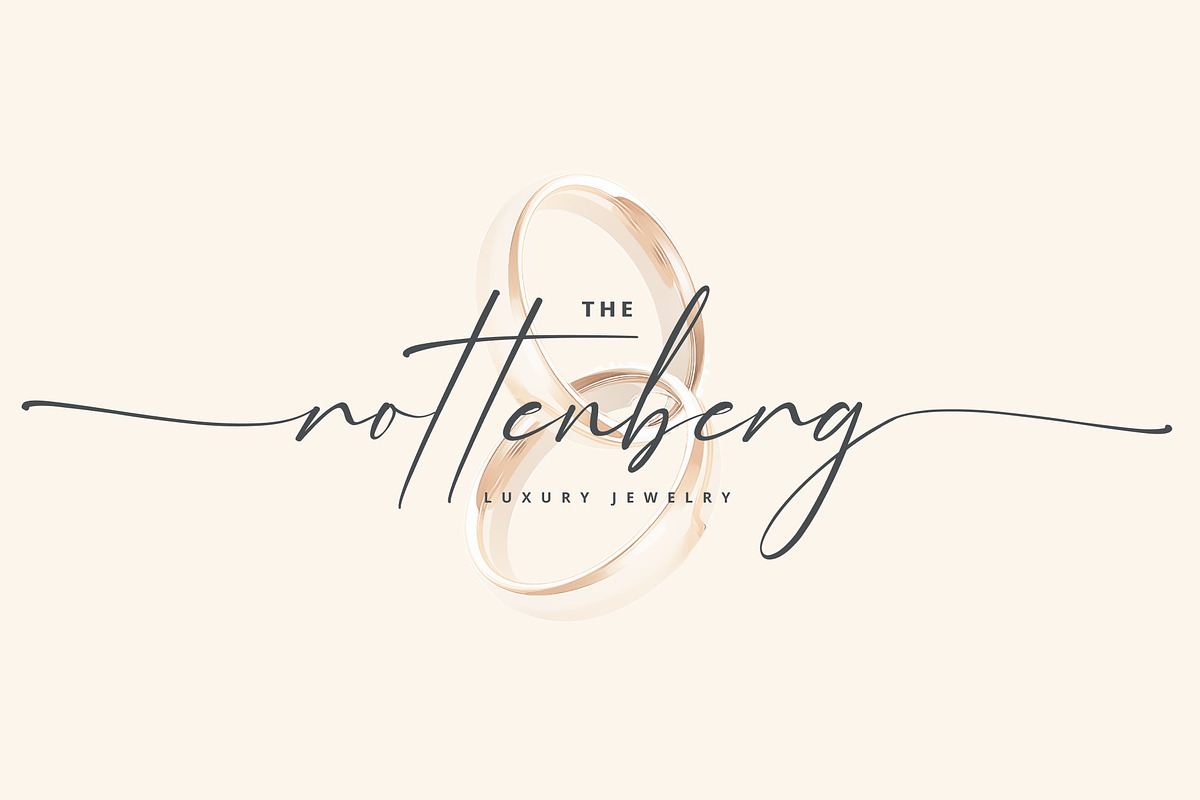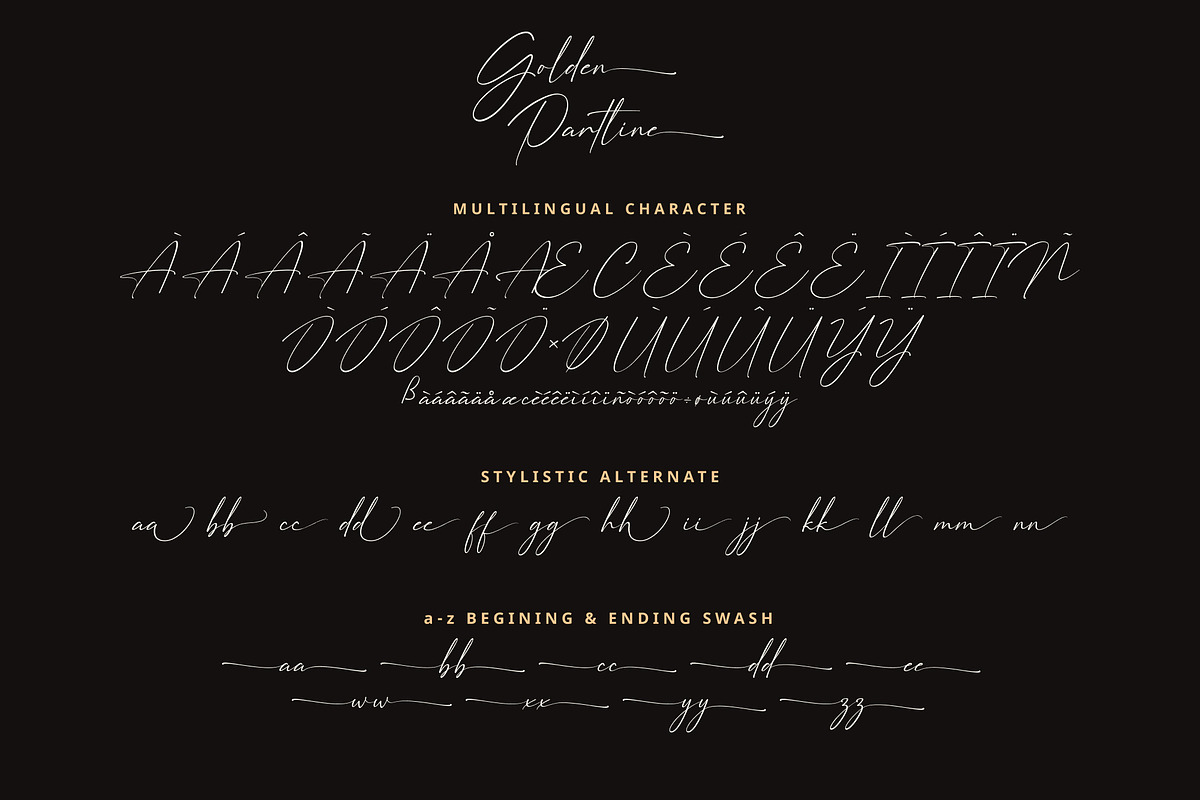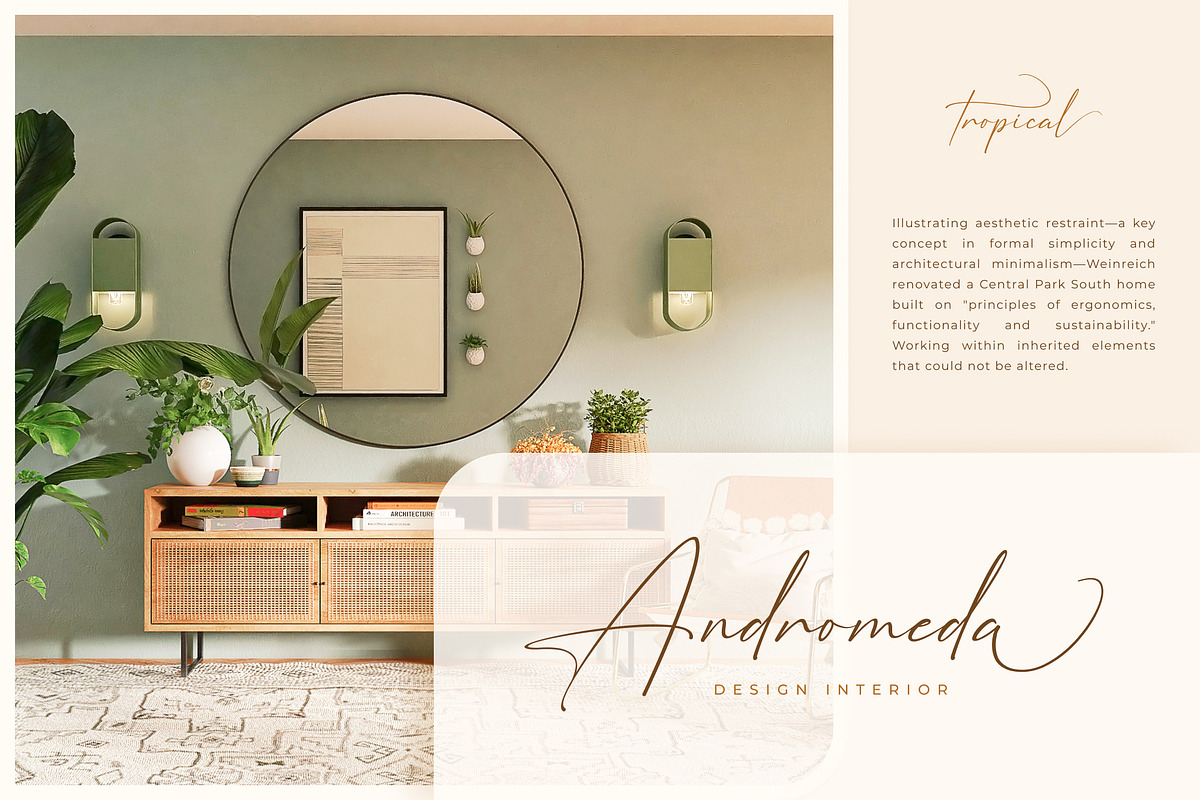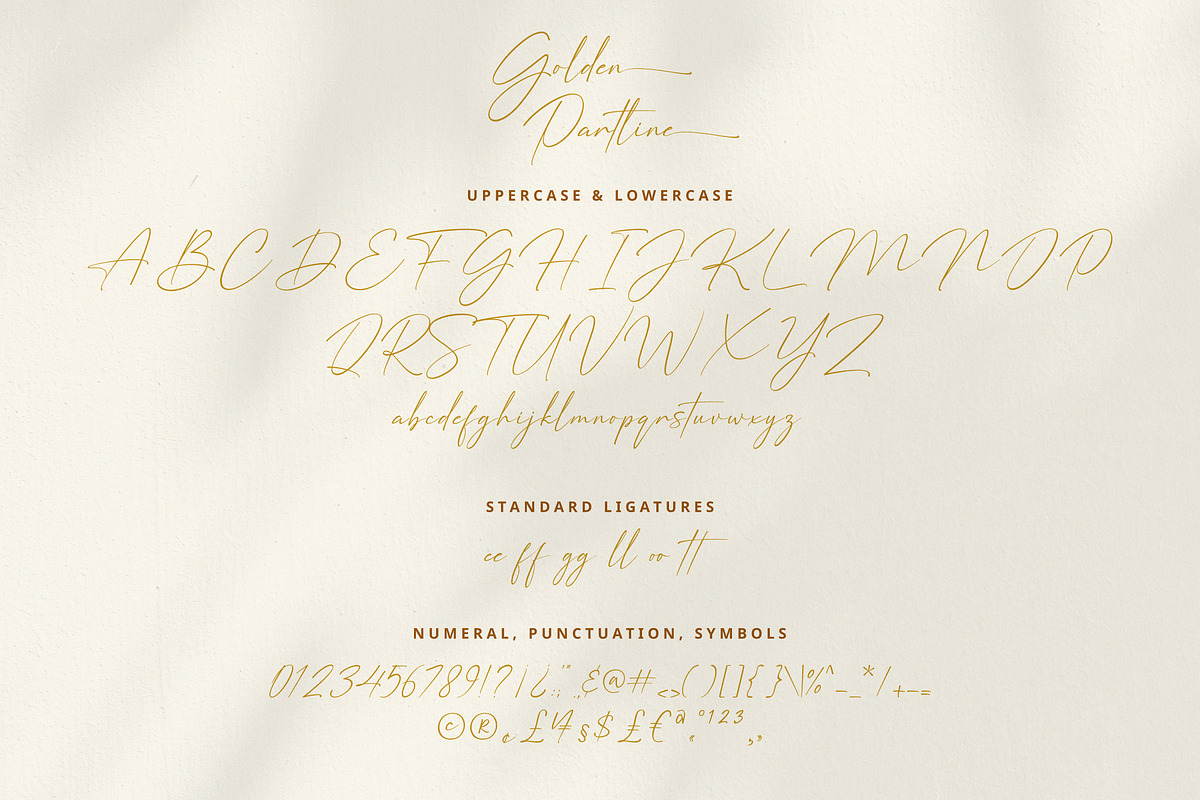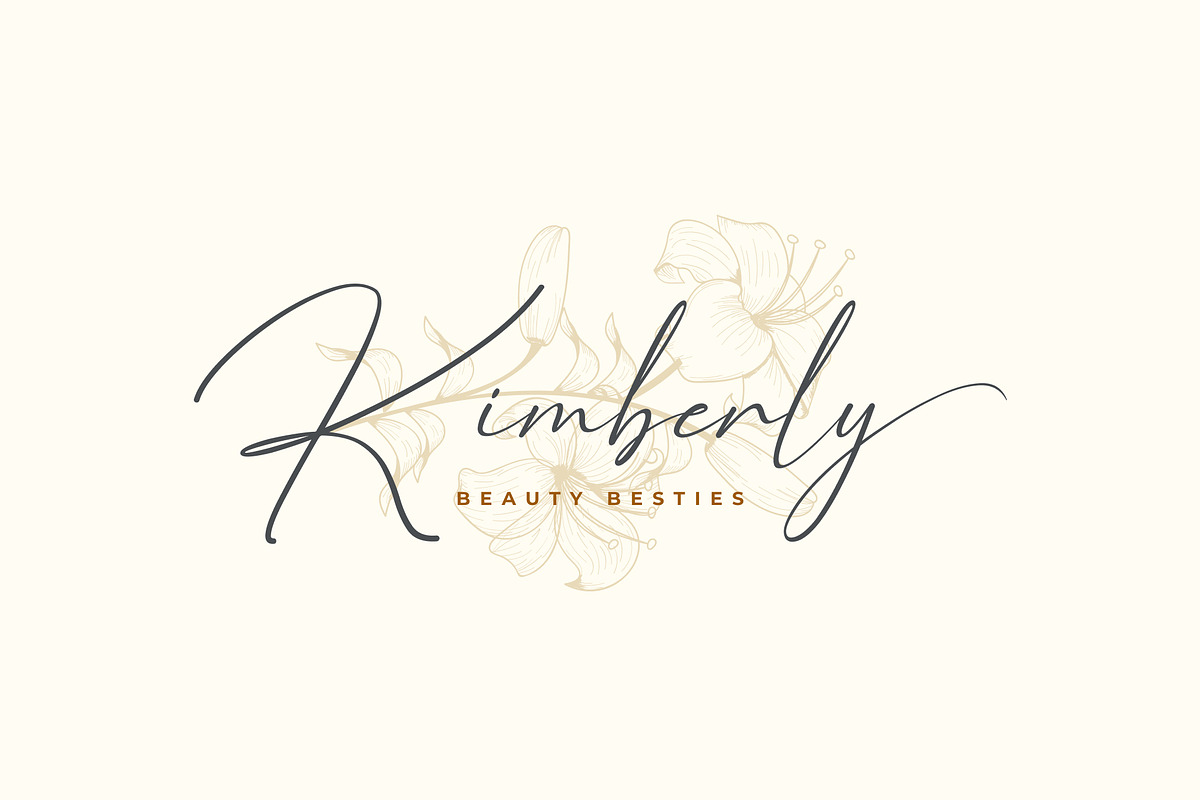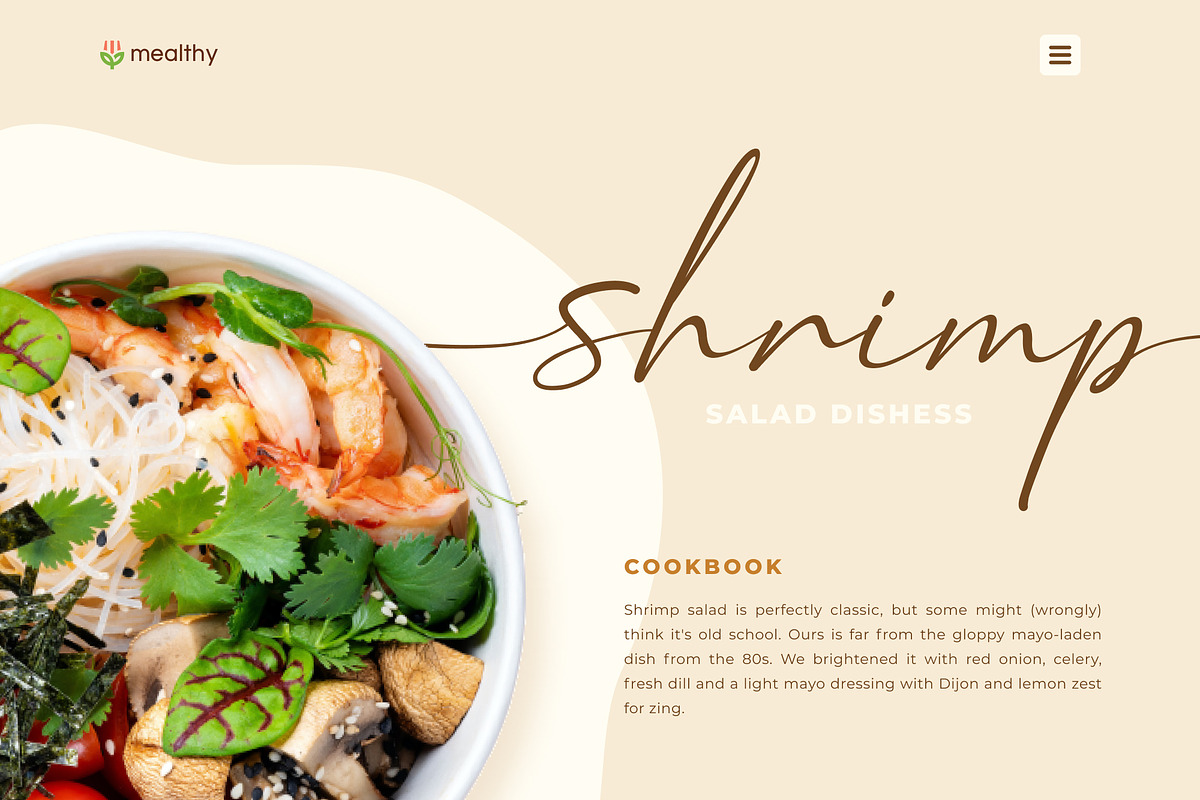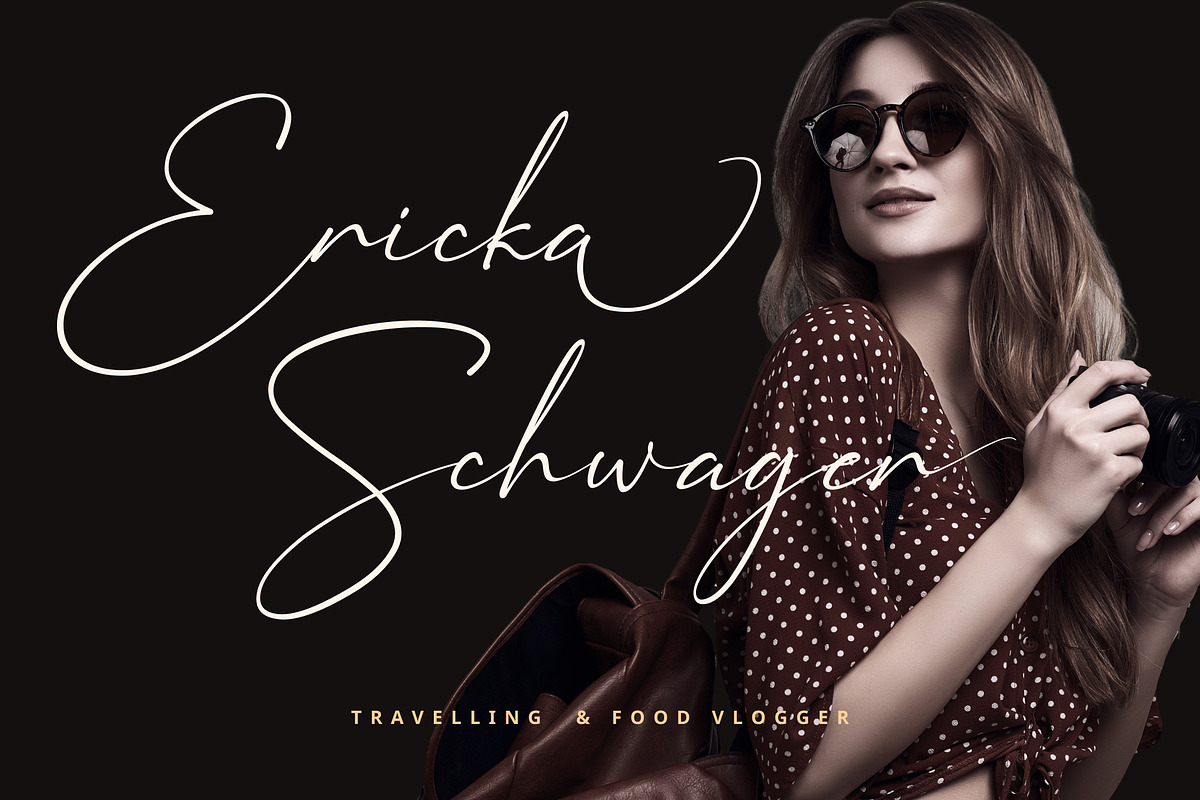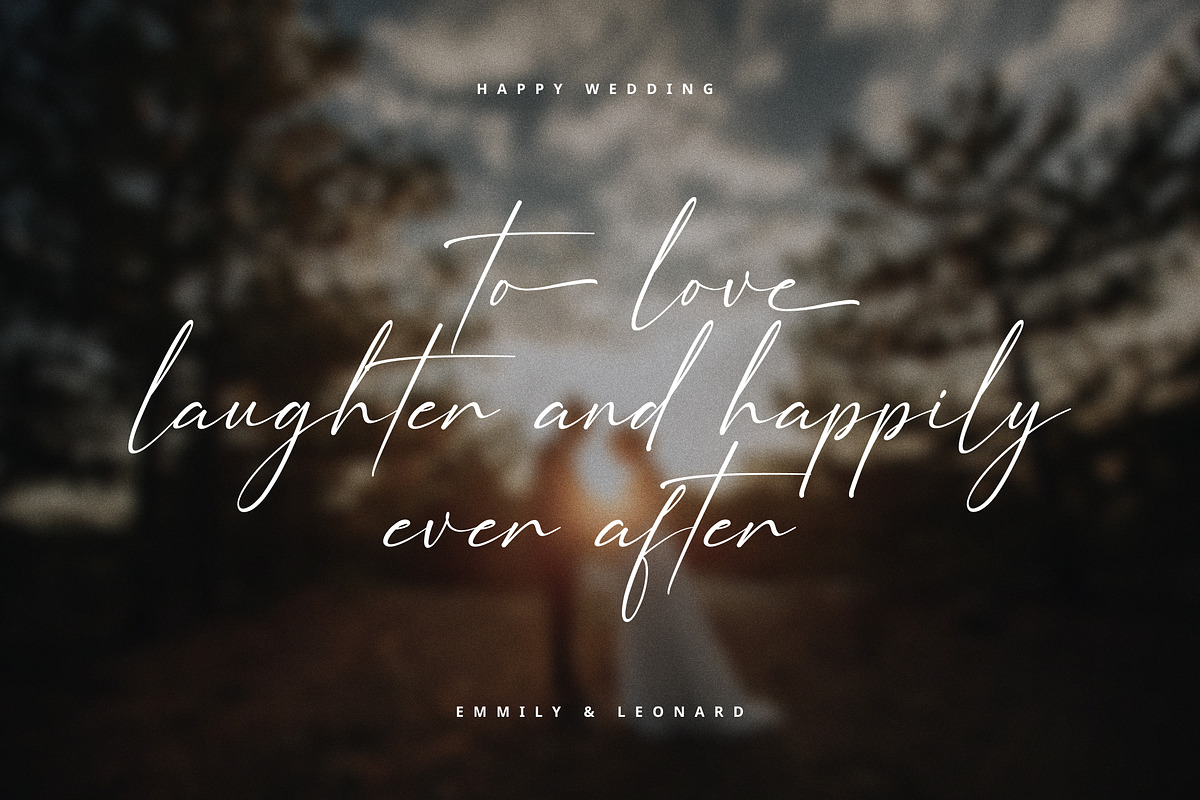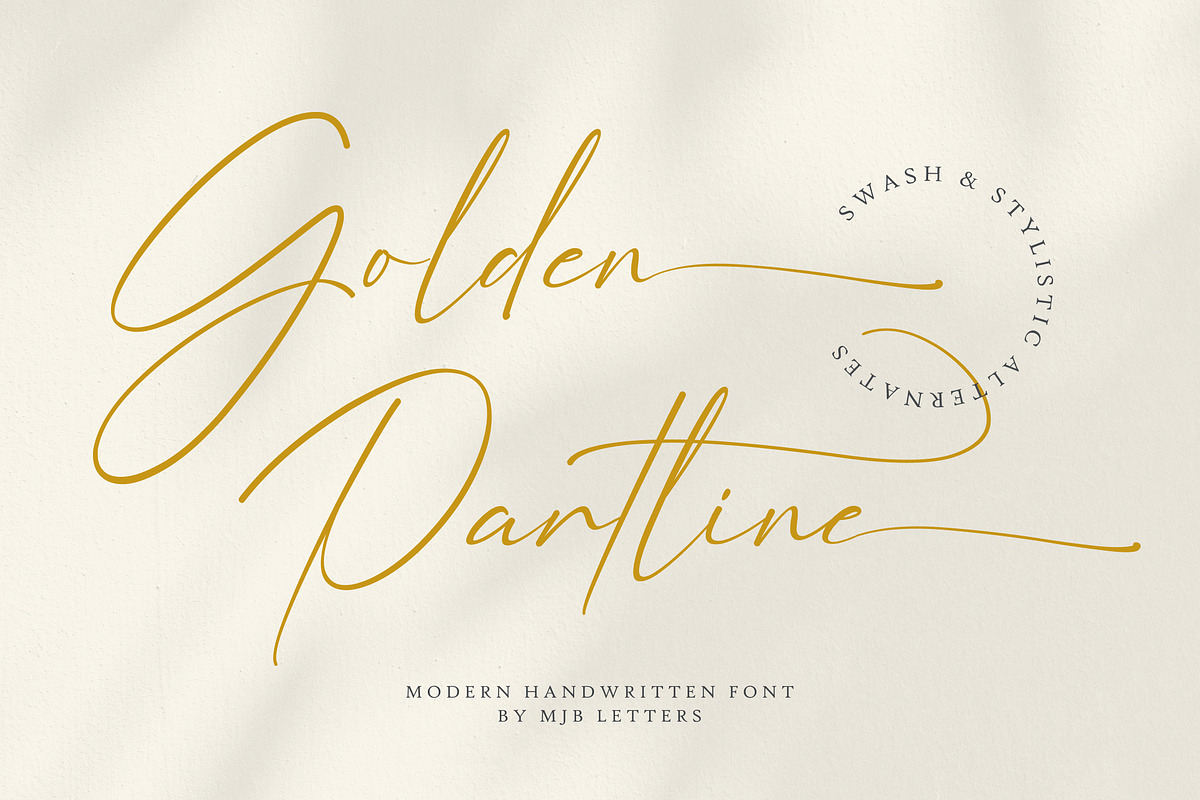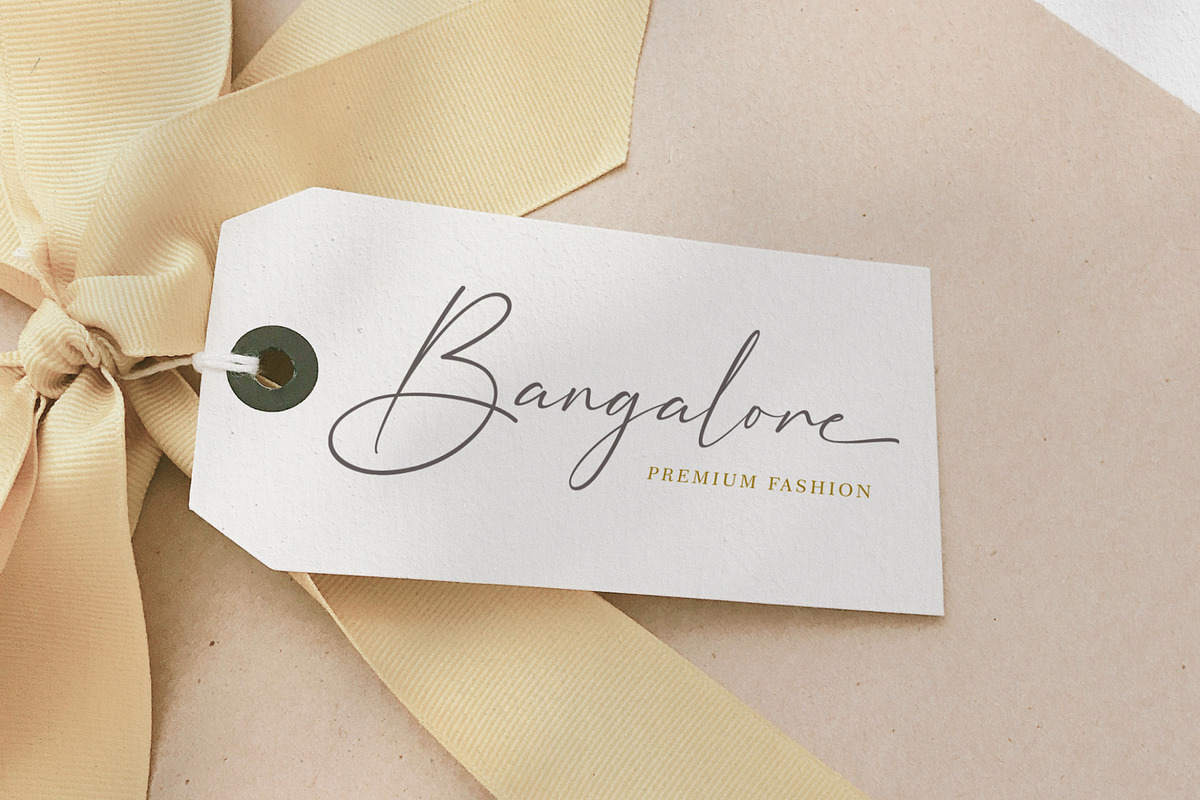
Golden Partline | Modern Handwritten
Golden Partline is a modern handwritten font that has strong characters in each letter, and this font also has several alternatives, ligatures, and swashes as a compliment that will make the design you create look more elegant and professional.
This font is very suitable for branding, packaging, fashion design, logo design wedding invites, wedding invitations, posters, and more.